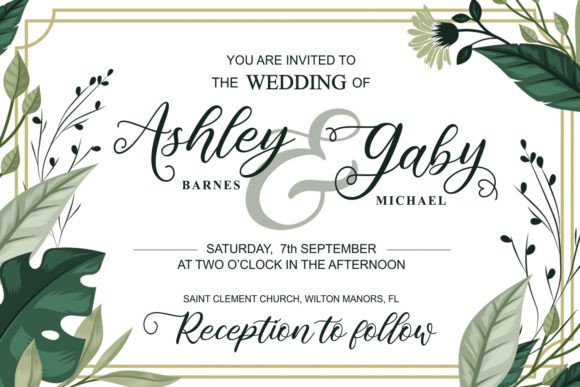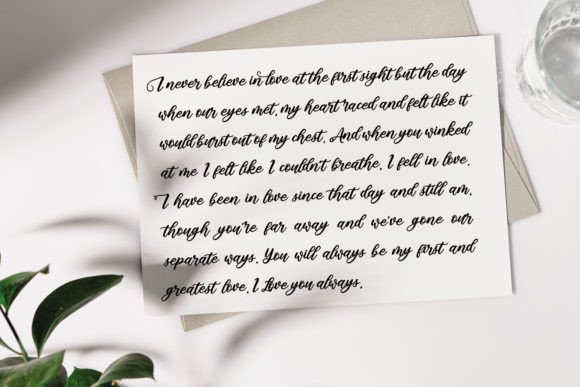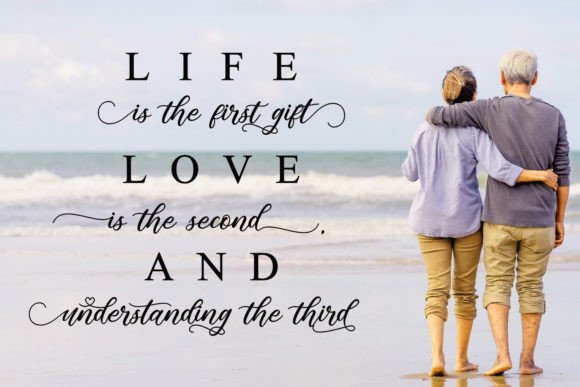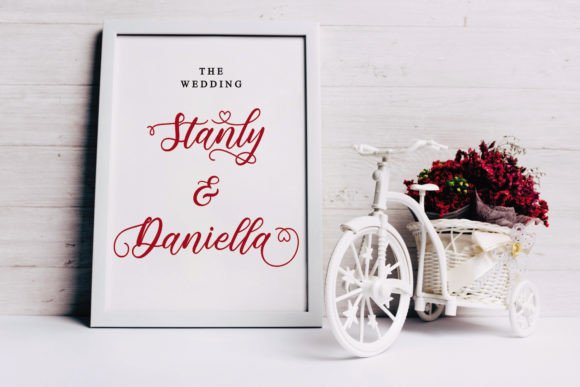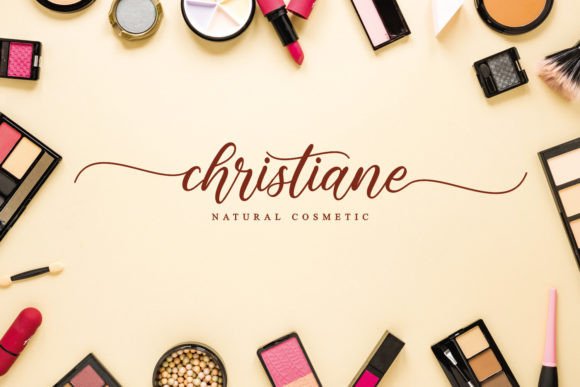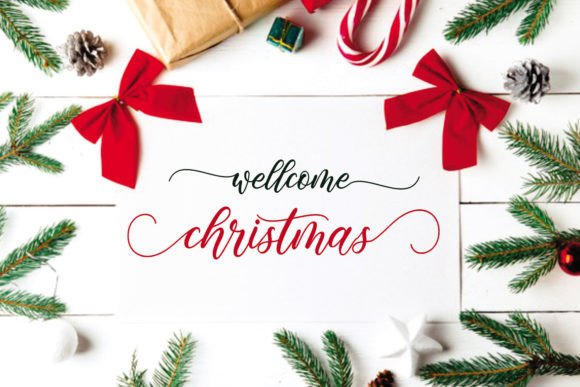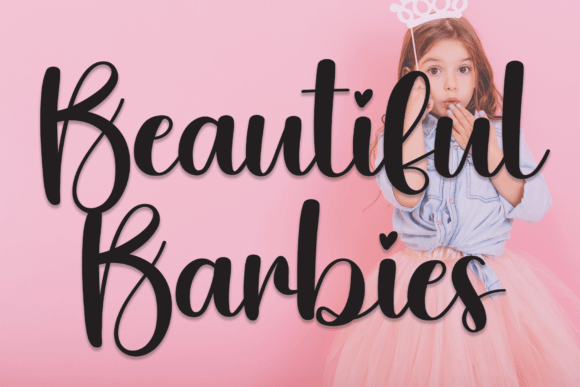
The Perfect Script for Your Masterpiece
Have you ever found yourself staring at a blank canvas, desperately searching for the perfect font to bring your design to life? We’ve all been there – the blank page staring back, taunting us with its emptiness. But what if I told you there’s a font that can turn that blank canvas into a masterpiece? Enter the Beauty Magnolia Font, a stunning script font that embodies sophistication and elegance.
| 👤 Author | Mozatype |
This beautiful font is more than just a pretty face – it’s a tool that can elevate your designs with its captivating aesthetic. Whether you’re a seasoned designer or just starting out, the Beauty Magnolia Font is a valuable addition to your toolkit. Its fluid, sweeping letterforms add a touch of glamour to any project, making it ideal for conveying luxury and refinement.
Beauty Magnolia Font Key Features
- Size and Resolution: The font comes in a single weight with a range of 5 styles, each with 5 different font sizes, making it suitable for various design applications. The resolution is optimized for 72 dpi, ensuring crisp and clear text at any size.
- Unique Characteristics: The font features elegant, cursive script with intricate details, making it perfect for adding a touch of sophistication to invitations, wedding stationery, and other special occasions.
- Font Style: The font has a classic, vintage feel with a modern twist, making it suitable for a wide range of design applications, from formal events to everyday communication.
Beauty Magnolia Font Review
As a designer, I’ve had the chance to work with the Beauty Magnolia Font, and here’s my honest review.
The Beauty Magnolia Font is a beautiful, elegant script font that’s perfect for creating a luxurious and sophisticated look. It’s ideal for branding, packaging, and advertising projects that require a touch of elegance.
- Unique and stylish design
- Perfect for creating a luxurious and sophisticated look
- Wide range of uses, including branding, packaging, and advertising
While the Beauty Magnolia Font is a beautiful font, it does have some limitations. It’s not as versatile as some other fonts, and it may not be suitable for projects that require a more modern or edgy look.
- Limited versatility
- Not suitable for modern or edgy projects
- May not be legible at small font sizes
Overall, I think the Beauty Magnolia Font is a great choice for designers who want to create a luxurious and sophisticated look. While it may have some limitations, it’s a beautiful font that’s sure to impress.
Getting the Most Out of Beauty Magnolia Font
To get the most out of Beauty Magnolia Font, use it for designs that require a touch of elegance and sophistication. It pairs well with floral and minimalist designs. Experiment with different font sizes and colors to create a unique look.
Beauty Magnolia Font is perfect for:
- Floral and botanical designs
- Minimalist branding and logos
- Editorial and lifestyle content